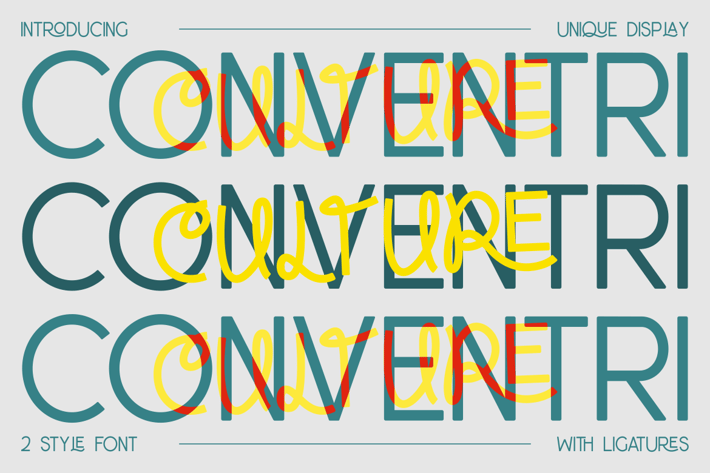
Conventri - Modern Font
Introducing Conventri - Modern Font, a uniquely styled display typeface that combines elegance and modernity with a playful twist. This sans serif font features curly cues integrated into each letter, offering a fresh and lively look that enhances any creative project. Conventri is available in two styles and includes ligatures that add a touch of sophistication and versatility, making it perfect for a wide range of applications. Whether you are designing logos, branding materials, or crafting distinctive titles, Conventri brings a unique character and modern elegance that can transform any text into a piece of art.
Conventri is not just about aesthetics; it's a practical choice for designers looking to make a statement. Its clean, modern lines ensure readability while its ornate details captivate the viewer’s attention. Ideal for use in movie titles, book covers, magazines, and more, this font is versatile enough for both commercial and creative endeavors. The inclusion of ligatures ensures that every composition stands out with its own unique flair. If you’re looking for a font that marries modern design with elegant curvature, Conventri is your go-to choice, guaranteed to elevate your projects and leave a lasting impression.